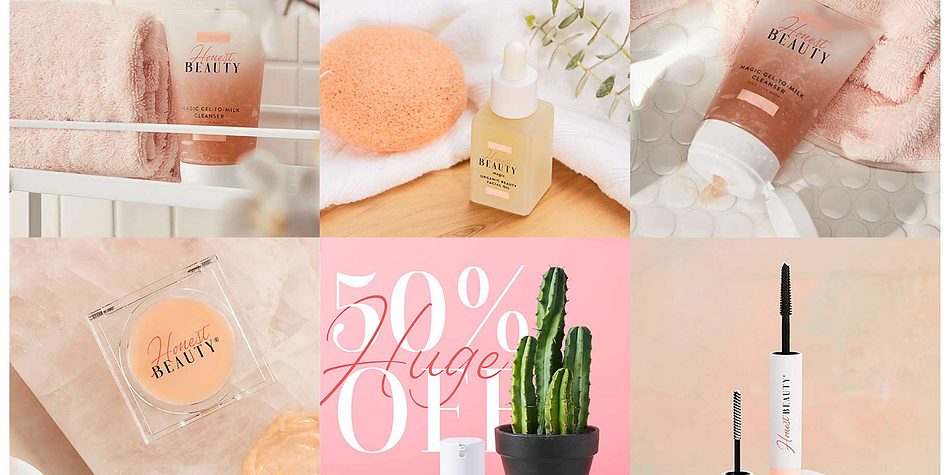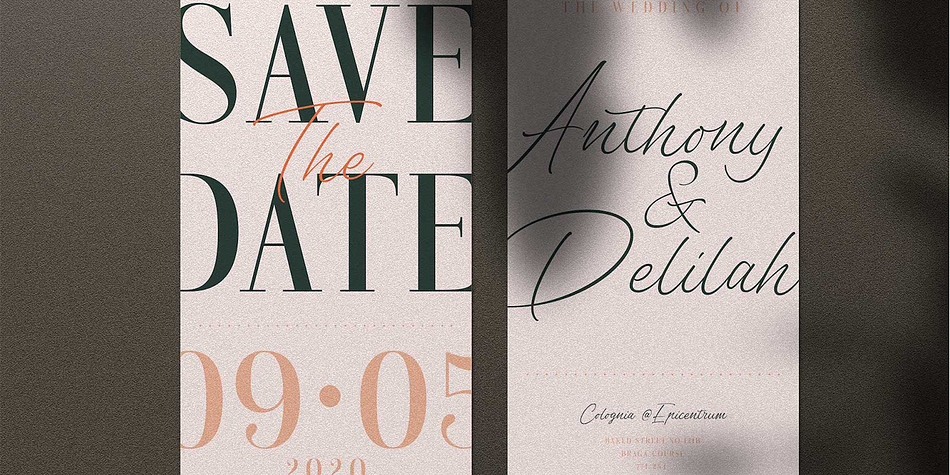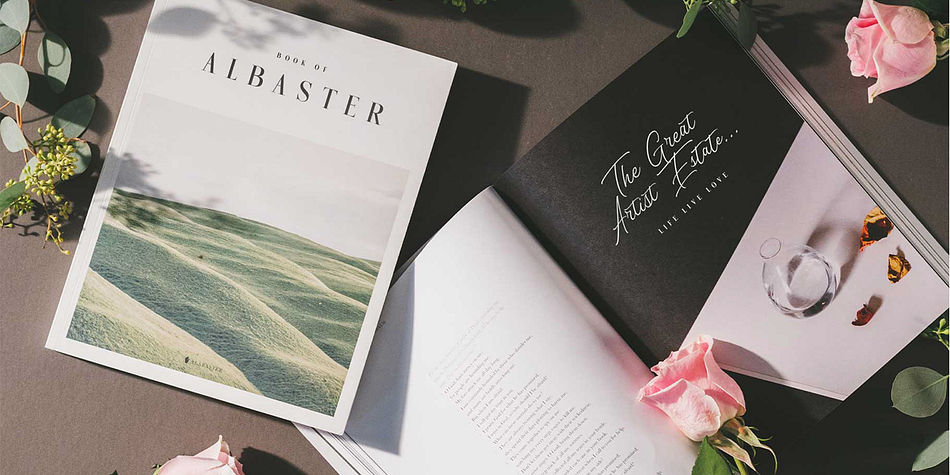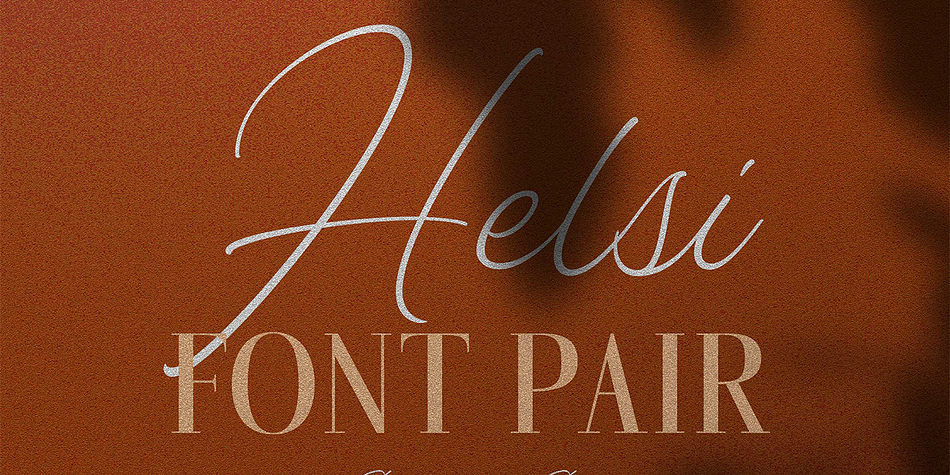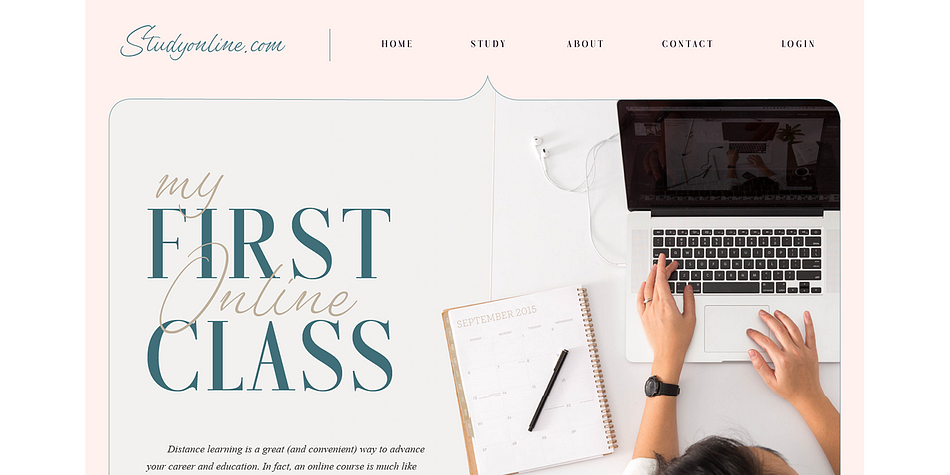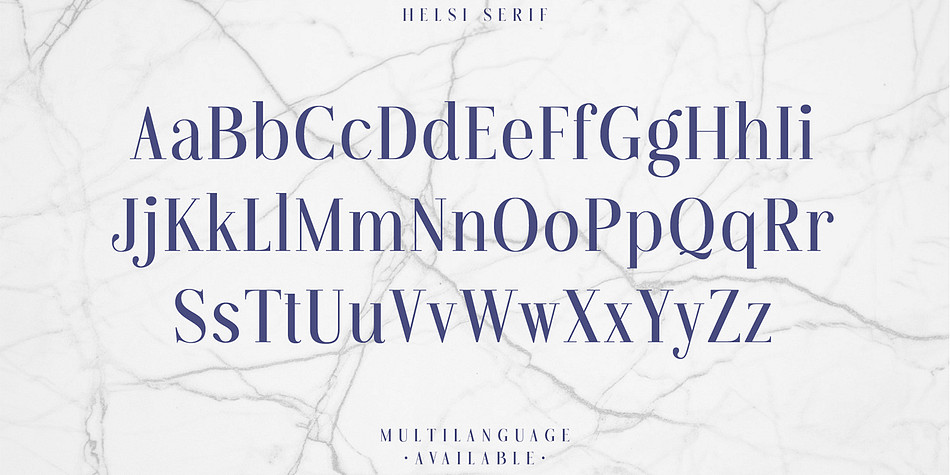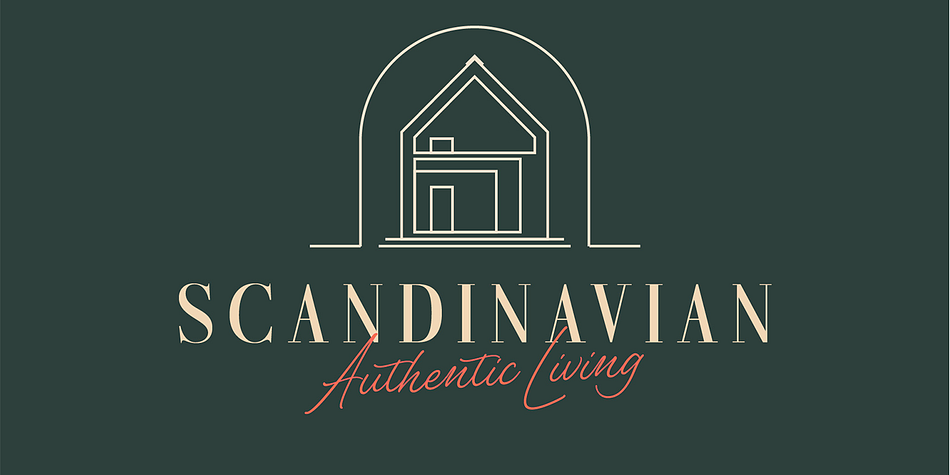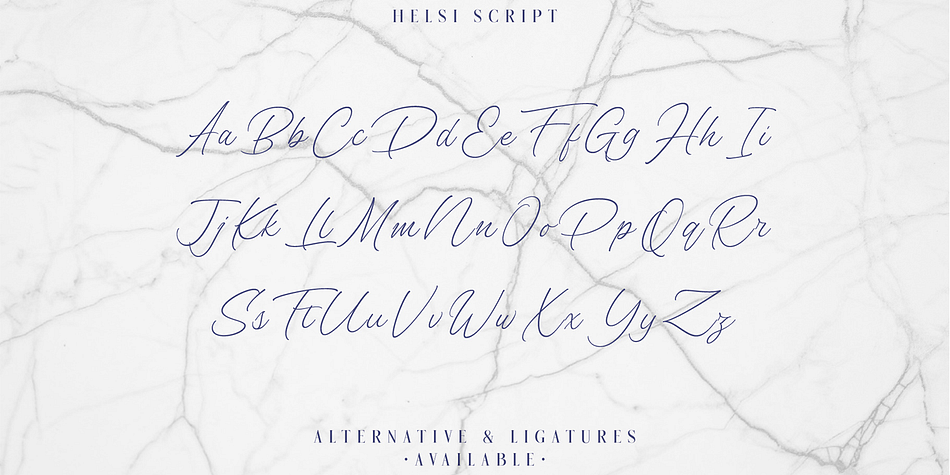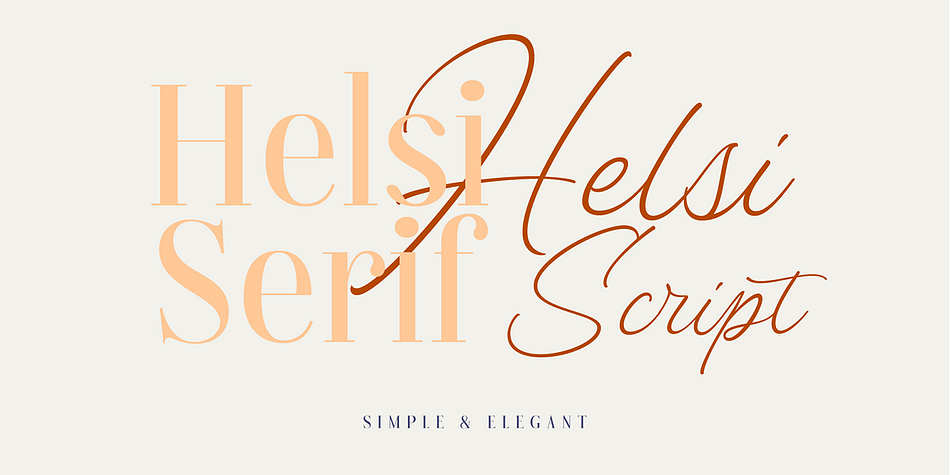
Helsi
Helsi is a modern calligraphy, script and serif font family. This typeface has two styles and was published by AF Studio.
Helsi - Another Luxury Font Pair Script & Serif.
In life everybody sometimes got serious, focus, strong, thinking, and etc. But sometimes life must be enjoy, relax, breath, fun, smiling, laughing and etc.
So I presented the great font pair between ‘serious and enjoy’ with the name Helsi. Handwritten with some touch of signature style of font combined with serif font to matching up the needs. On the Script version is created with a freedom of writing by a hand and Serif clean crafted by a pixel perfection. Both of them are comes with Multiple Language such as European and Western Character. The features created are not as huge as my product before, I just create what I think must need such as Ligatures.
Helsi also support multilanguage :